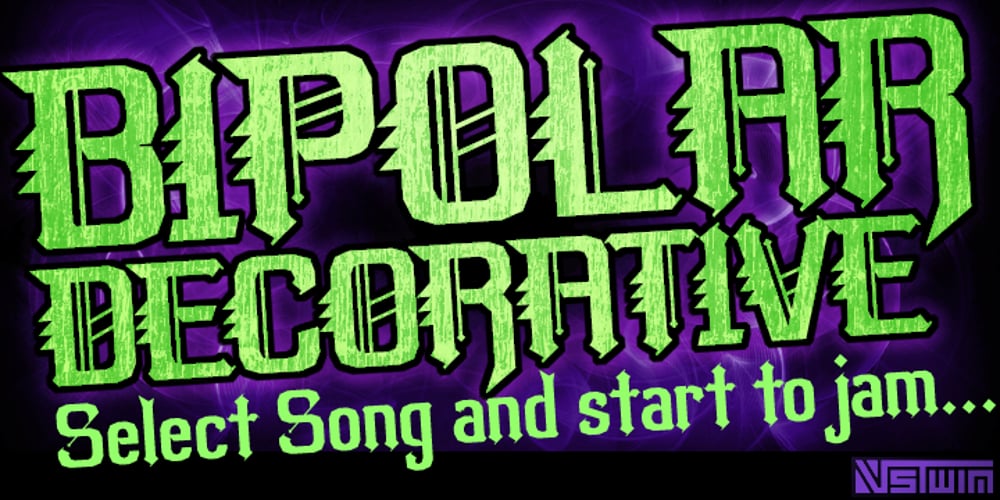
Bipolar Decorative Font Family was designed by Brian J. Bonislawsky, Brian Jaramillo and published by VersusTwin. Bipolar Decorative contains 1 styles and family package options. A bolder condensed version of the Bipolar family of fonts, Bipolar Decorative has a level of ornamental sophistication and balancing that is surprising for its narrow spiny appearance. It’s a neo-blackletter typeface that screams for experimental as well as serious use.